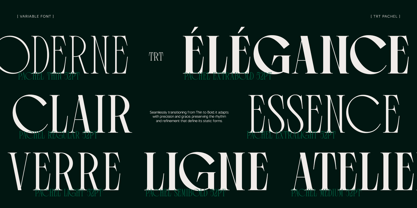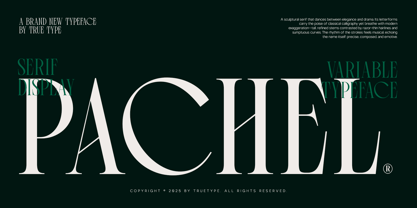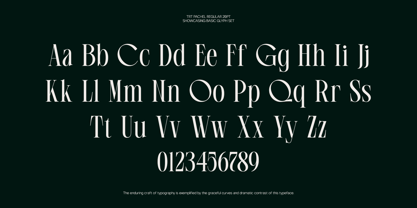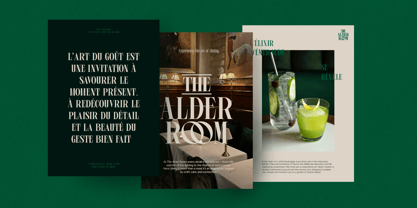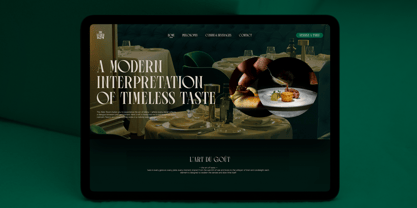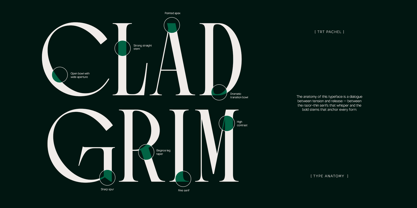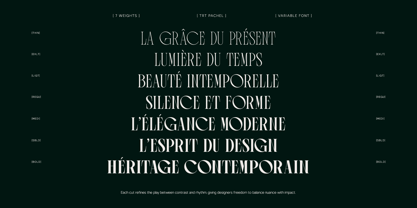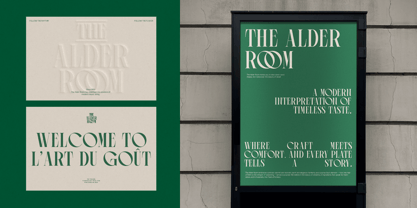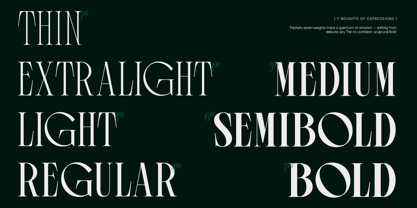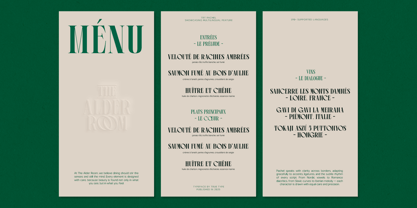
TRT Pachel
The TRT Pachel Font Family was designed by Yusilo Oktaprima Ardani and published by True Type Lab. TRT Pachel contains 7 styles and family package options.
TRT Pachel is a luxury high-contrast serif font designed for editorial layouts, fine-dining branding, and premium visual identities. With elegant proportions, refined curves, and expressive ligatures, TRT Pachel delivers a timeless yet modern look for logos, menus, magazines, and boutique branding. Perfect for designers who seek sophistication in every detail. we craft typefaces that are modern, functional, and expressive designed to help your message stand out with confidence.